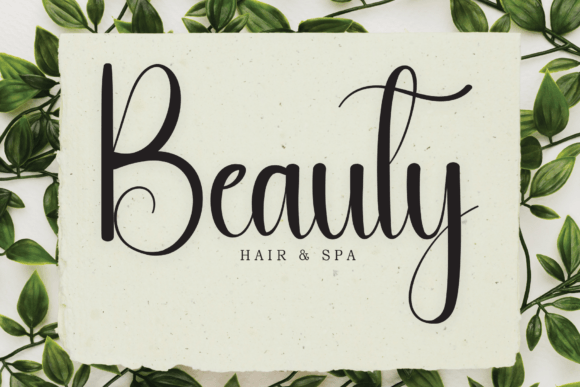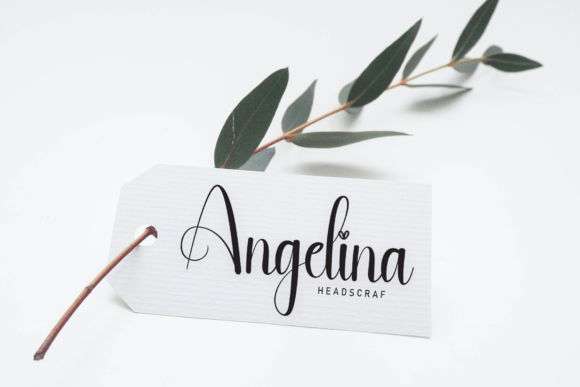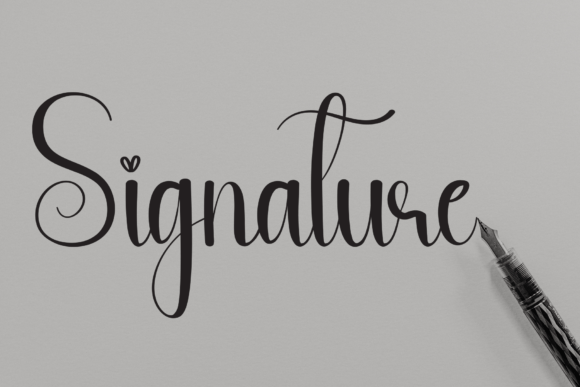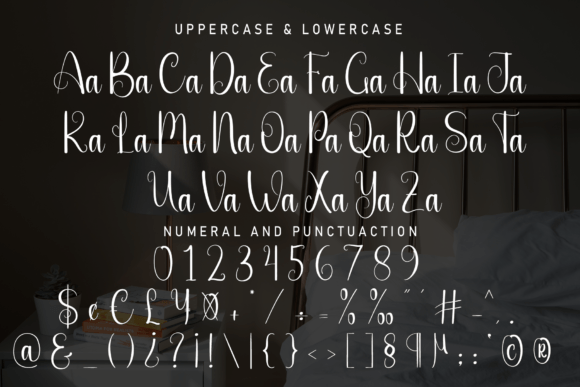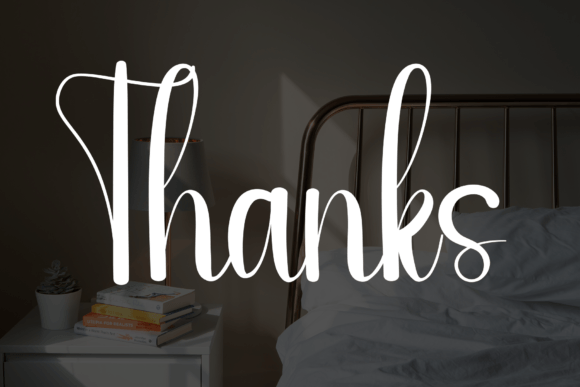
Introduction to Hellosunday Font
Do you remember the moment when you stumbled upon that perfect font for your creative project? The one that made your design come alive, and you couldn’t wait to share it with the world? For designers, finding that ideal font can be a game-changer. It’s the difference between a good design and an exceptional one. And today, we’re excited to introduce you to the Hellosunday Font, a sweet and friendly handwritten font that’s sure to add a fun touch to your next project.
This high-quality font is perfect for designers who want to add a personal touch to their work. With its fresh and neat design, it’s ideal for writing wedding invitations, cards, or any other design that needs a little extra love. And the best part? You can download it for free, making it an excellent design resource for any creative project.
Key Features of Hellosunday Font
- High-quality design: Hellosunday Font is a premium quality font designed for various creative projects, offering a unique and elegant look.
- Transparent background: This font features a transparent background, making it ideal for use on any design, including logos, banners, and digital art.
- High-resolution design: Hellosunday Font is designed at a high resolution, ensuring crisp and clear text even at larger sizes.
- Perfect for creative projects: This font is ideal for use in creative projects such as book covers, magazine articles, and social media graphics.
- Regular and bold weights: Hellosunday Font comes in regular and bold weights, providing flexibility for designers to choose the perfect style for their project.
Honest Review: Hellosunday Font
I recently stumbled upon the Hellosunday Font, and I must say it’s a great addition to my design resource library. As a designer, I’m always on the lookout for high-quality fonts that can elevate my creative projects.
The Hellosunday Font has a beautiful, elegant design that makes it perfect for a variety of uses, from wedding invitations to branding materials. One of the things that stands out about this font is its transparent background, which makes it easy to use in both digital and print projects.
- Transparent background makes it easy to use in various mediums
- Only available in a single style, which may limit its versatility
- Not suitable for use in small font sizes, as it may become difficult to read
Overall, I’m impressed with the Hellosunday Font and would recommend it to designers looking for a high-quality, free download resource. While it may have some limitations, its elegant design and transparent background make it a valuable addition to any design library. ⚠️
Tips for Getting the Most Out of Hellosunday Font
For the best results, use Hellosunday Font in conjunction with other high-quality design resources. Experiment with different font sizes, colors, and arrangements to create visually appealing designs. You can also use the font to create custom graphics or logos for your creative project.
Hellosunday Font is commonly used in a variety of creative projects, including blog posts, social media graphics, and business presentations. It’s also a popular choice for designing flyers, brochures, and other marketing materials. With its high-quality design and transparent background, Hellosunday Font is the perfect addition to any creative project.